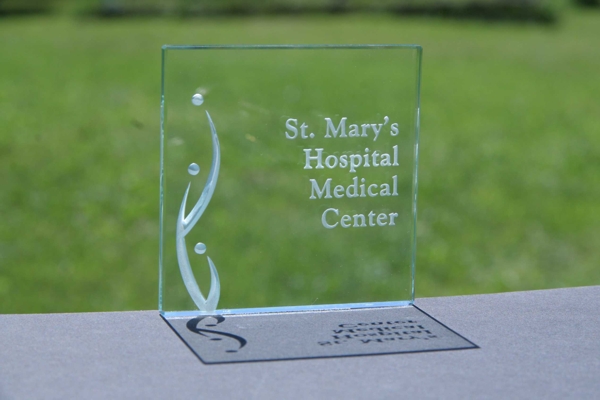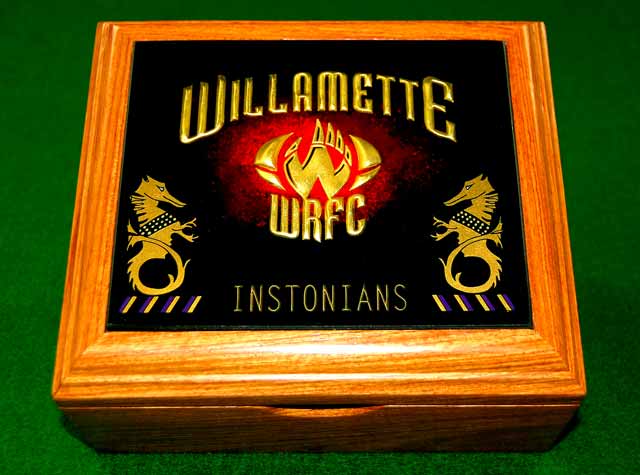
Sandblasted Letter Gilding
Over the years I have done some gilding, but I have never gilded depth carved (sandblasted) lettering on glass.
I have a vague idea of what to do...but I want to make sure I am doing it right by asking anyone on this forum if they have some advise for gilding this type of glass lettering.
I have clear fast size and clear slow size, along with loose and patent gold leaf.
Or would I use water size to apply the gold leaf to the sandblasted lettering?
You can see by the attached photo how deep the letters are.
I should also mention that the letters are blasted on the back of the glass.
Re: Sandblasted Letter Gilding
I like to first seal the sand carving with Frog Juice (because its optically clear).
The gild always comes out brighter if it's water gilded, however, due to
the small size of the letters, it would be better and easier to surface gild them,
or perhaps use mica powder rather than gold leaf.
The gild always comes out brighter if it's water gilded, however, due to
the small size of the letters, it would be better and easier to surface gild them,
or perhaps use mica powder rather than gold leaf.
Re: Sandblasted Letter Gilding
I've done it many times and normally use slow size and loose leaf rather than patent. Keep in mind that the texture of the sandblasted glass will impact the look of the gild. As Larry said, water gilding it going to be brighter but because of the sandblast texture you will not get a bright mirror finish with water gilding. Here is a quick picture of a piece I did for a customer a couple of years ago. The top of the box is sandblasted and gilded on the reverse side of the glass. Only the text and logo is gilded, the lions are gilt varnish and the rest is paint. I will have to try the frog juice idea Larry mentions as a way to get a smoother texture to the surface being gilded.
How would I remove the extra gold leaf from the non-blasted glass? I'm thinking single edge razor. But I have seen the flat leather block demo...would I use that in lieu of the razor blade?
Also, in lieu of frog juice...could I use Florence Japan or one of those other cecil/glawson clear varnishes?
Re: Sandblasted Letter Gilding
I've normally used Frog Juice, like Larry says. I don't see why a varnish wouldn't work as well, though you probably can't avoid having a very slight varnish tint to it.
For removal, just as you note, I've used a new, sharp razor blade. Be careful because if you don't pay attention it can drop down in a gilded crevice. Not familiar with the flat leather block demo.
That will look good when it's done.
I've normally used Frog Juice, like Larry says. I don't see why a varnish wouldn't work as well, though you probably can't avoid having a very slight varnish tint to it.
For removal, just as you note, I've used a new, sharp razor blade. Be careful because if you don't pay attention it can drop down in a gilded crevice. Not familiar with the flat leather block demo.
That will look good when it's done.
Several Samples have been completed.
1. regular glass - varnish fast size - 23k gold skewings.
2. regular glass - varnish fast size - bronze powder.
3. "Starlite” low iron glass - varnish fast size - 23k gold skewings.
4. "Starlite" low iron glass - varnish fast size - bronze powder.
The "Starlite" glass is an extremely clear glass with no green tint to it.
The gold and the bronze were equally impressive looking using "Starlite" glass.
Both the 23k gold and bronze powder had a green tint to it when using the regular glass.
And the winner is.....Number 3! You just cant beat that ultra clear low iron glass...it's like night and day.
We left the mask on after blasting, which really helped with the cleanup after we finished gilding.
I'll try and post some photos showing how the clearness varies between the two glasses, and a side by side of the gilding.
Generally, a lesser angled cone and shorter tube will make a wider, softer etch,(good for frosting larger areas) while a steeper angled cone and longer tube will result in a more tightly focused, faster etch, which is better for depth etching of letters and thinner lines and borders.